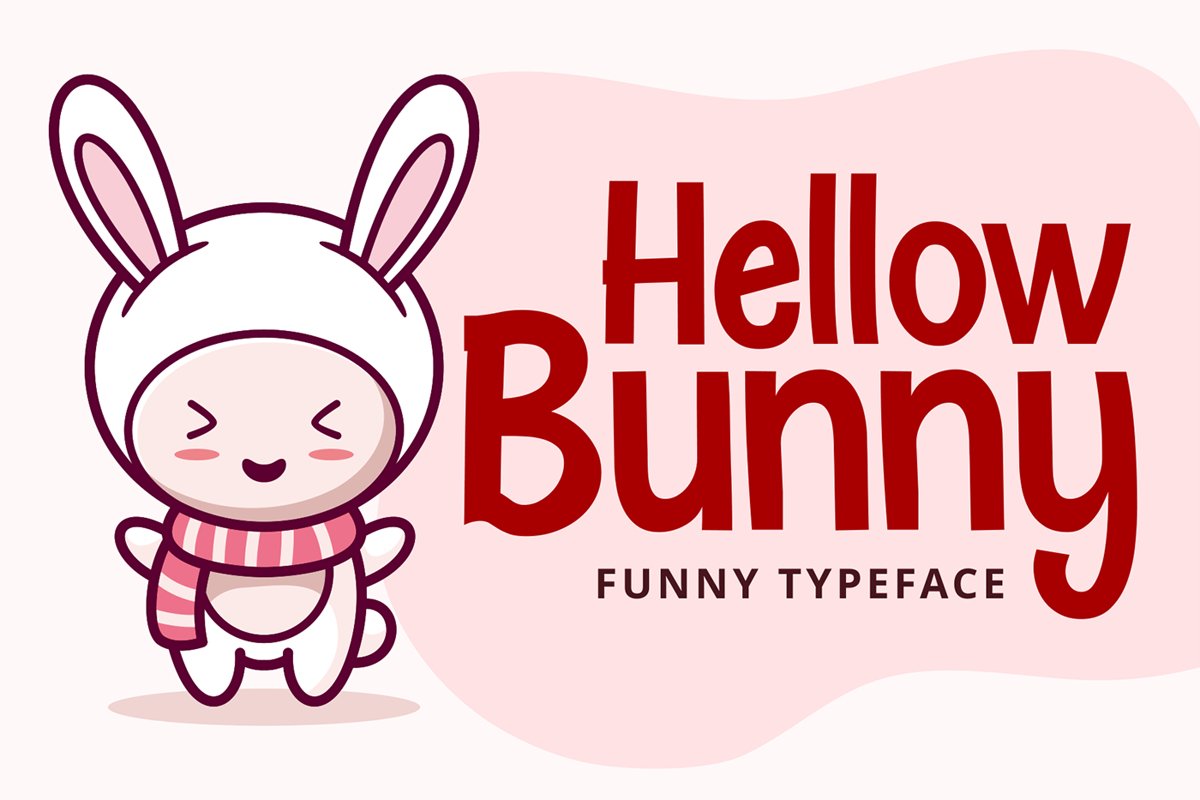
Hellow Bunny
Hellow Bunny is a cute display font. This fantastic font is best suited for product packaging, branding projects, magazine, logo, invitation, social media posts and much more. Get creative with its childlike playfulness, and use it to brighten up any kids and school project!